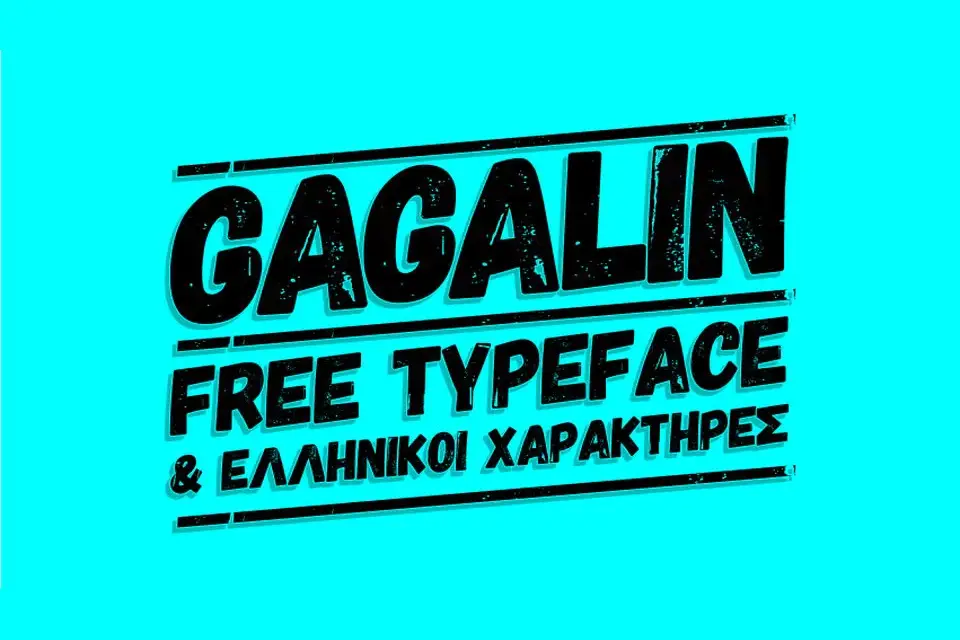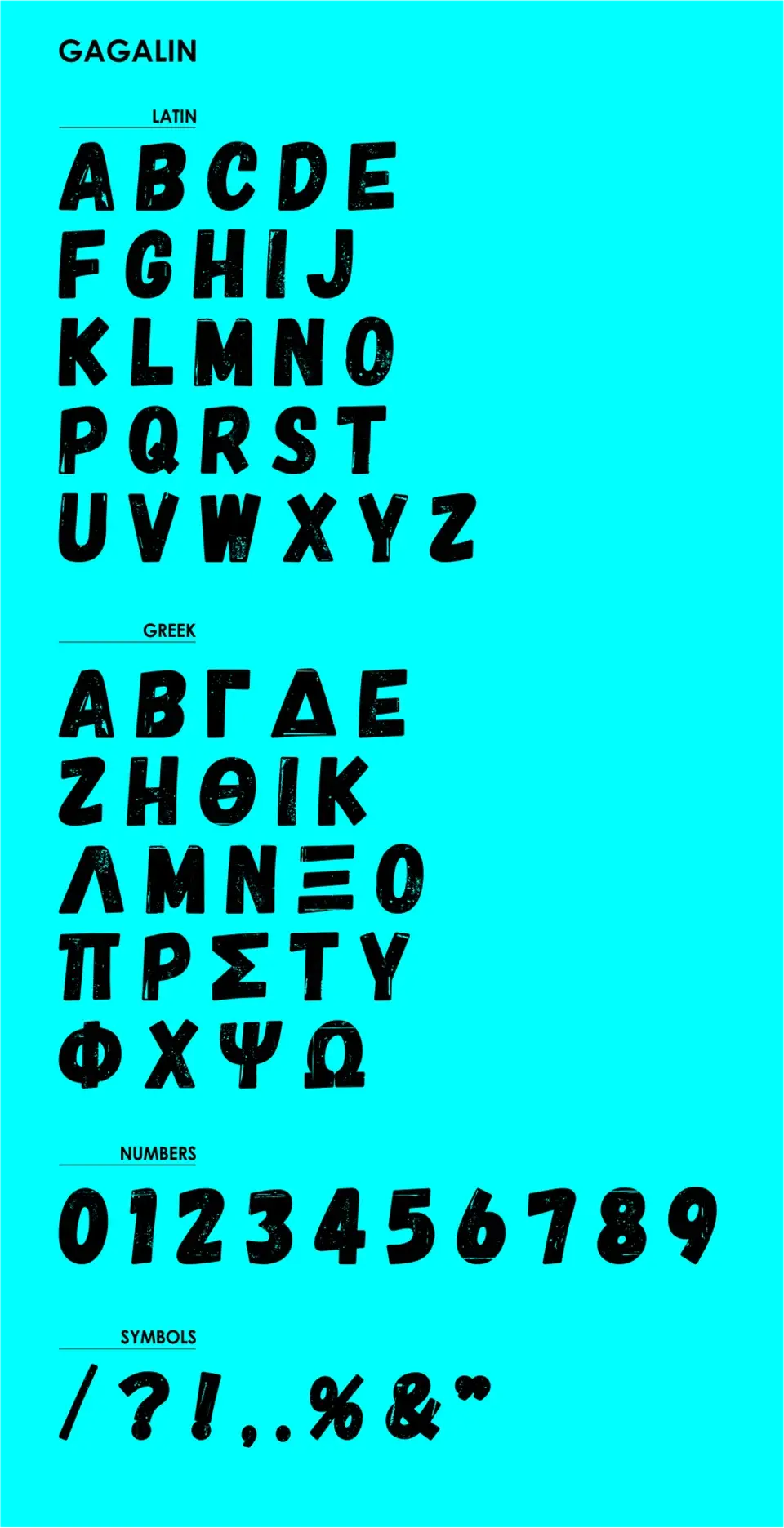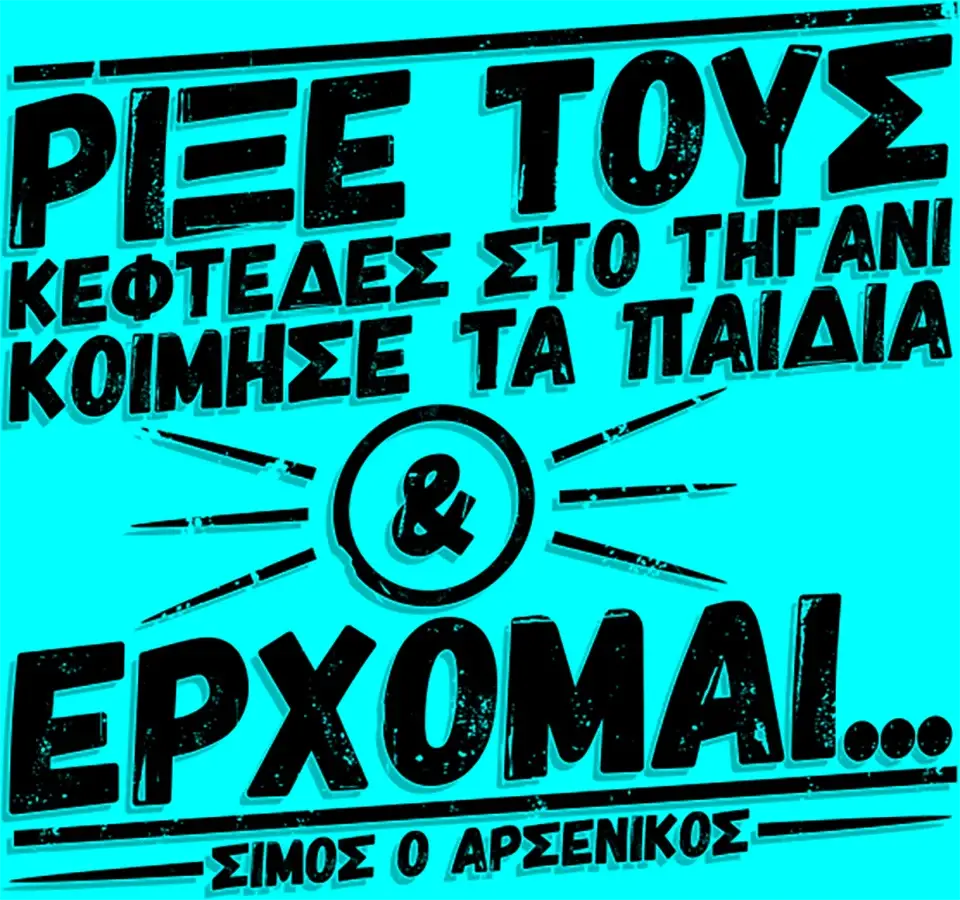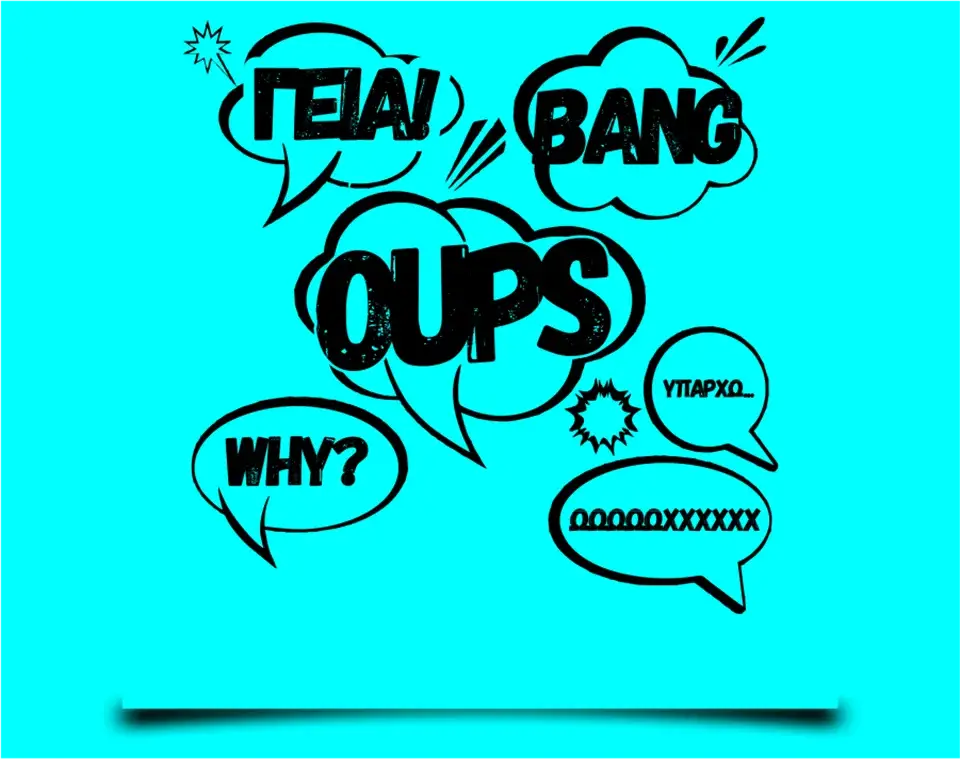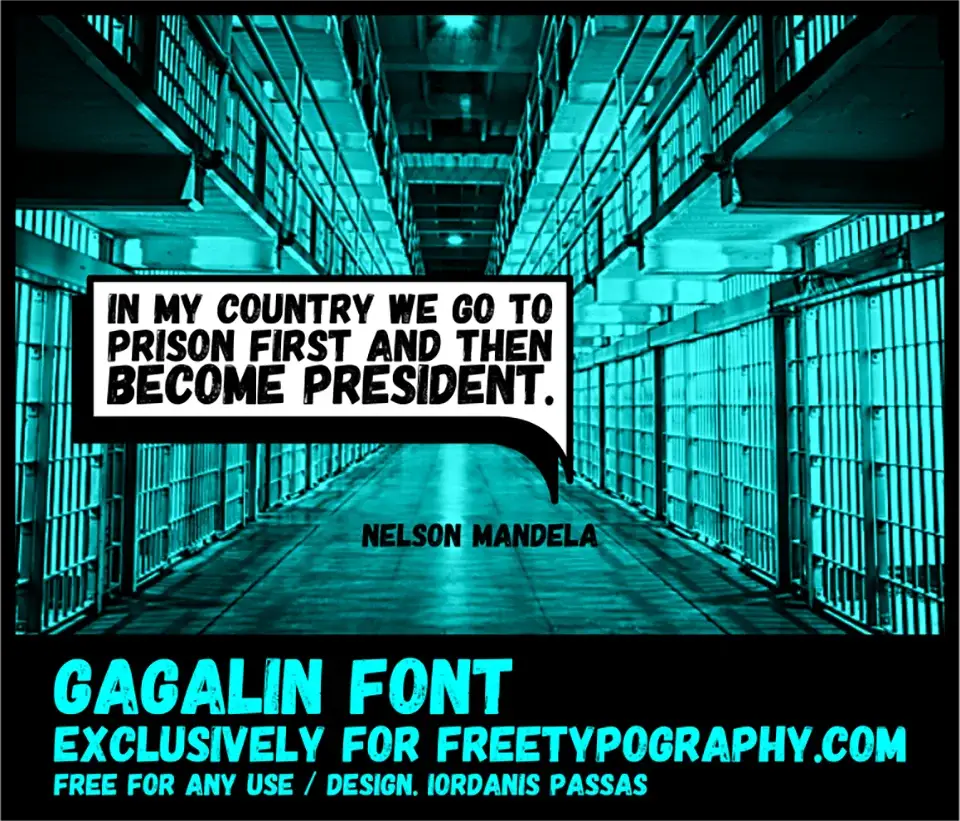
Gagalin Font
Gagalin Font is a bold, handwritten typeface inspired by comic book lettering. Designed by Iordanis Passas, this distinctive font features uppercase letters with a rough, scratchy texture that gives it a unique retro feel. Gagalin’s medium weight and rounded shapes make it ideal for various design projects, including posters, headlines, t-shirts, and magazines. Its versatility and character have made it popular among designers looking to add a touch of playfulness and nostalgia to their work.
Features of Gagalin Font:
- Bold, handwritten style
- Uppercase letters only
- Supports Latin, Greek, and Cyrillic languages
- Medium weight with rounded shapes
- Rough, scratchy texture for a retro comic book feel
- Suitable for various design projects
Available in multiple styles (regular, bold, italic)
What type of font is Gagalin?
Gagalin is a bold, handwritten brush font inspired by comic book lettering.
Who designed Gagalin Font?
Gagalin Font was designed and shared by Iordanis Passas.
What languages does Gagalin Font support?
Gagalin Font supports Latin, Greek, and Cyrillic languages.